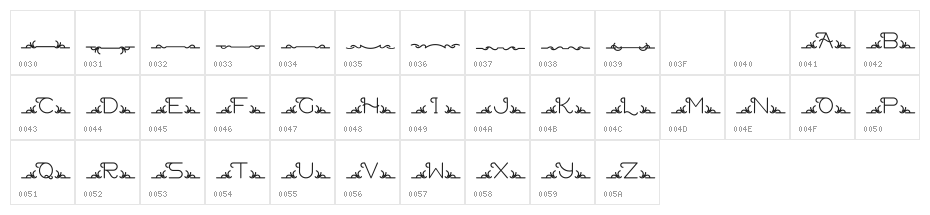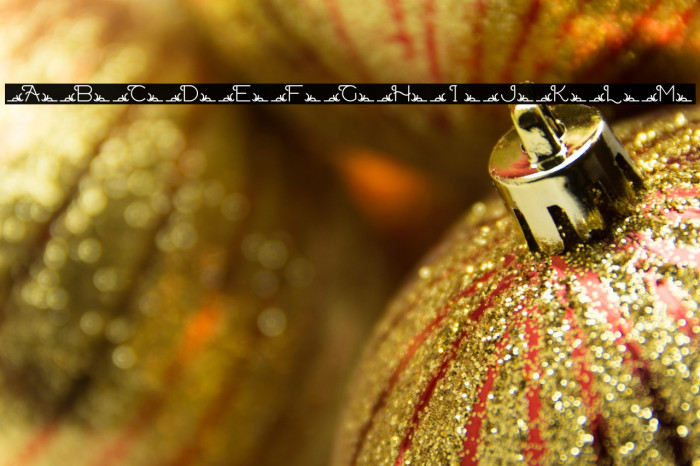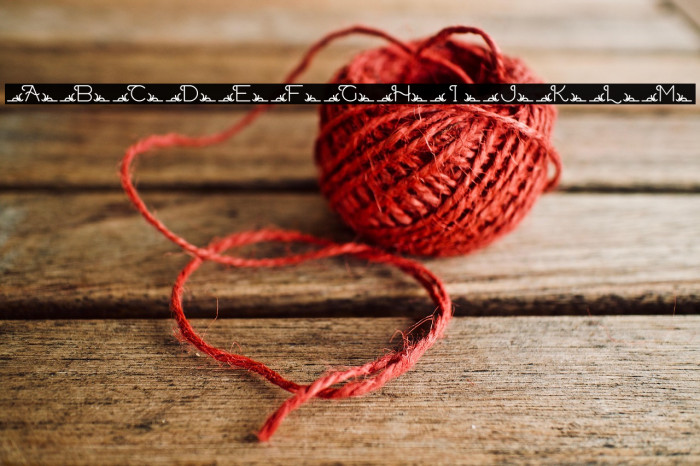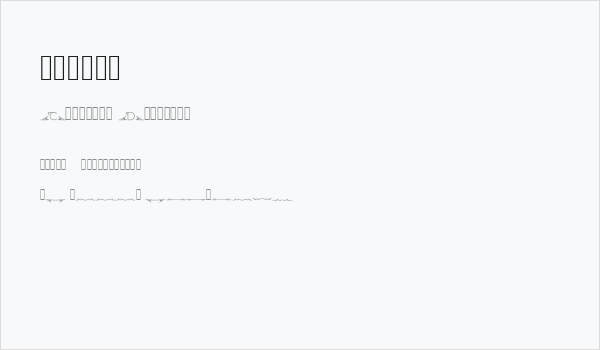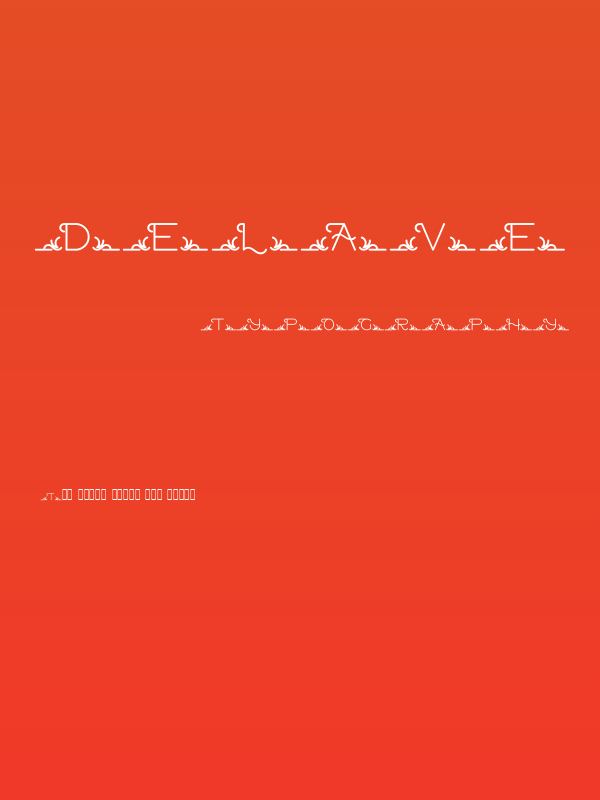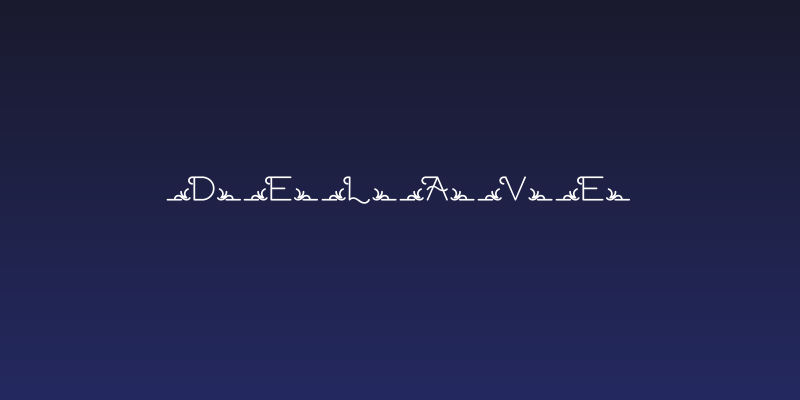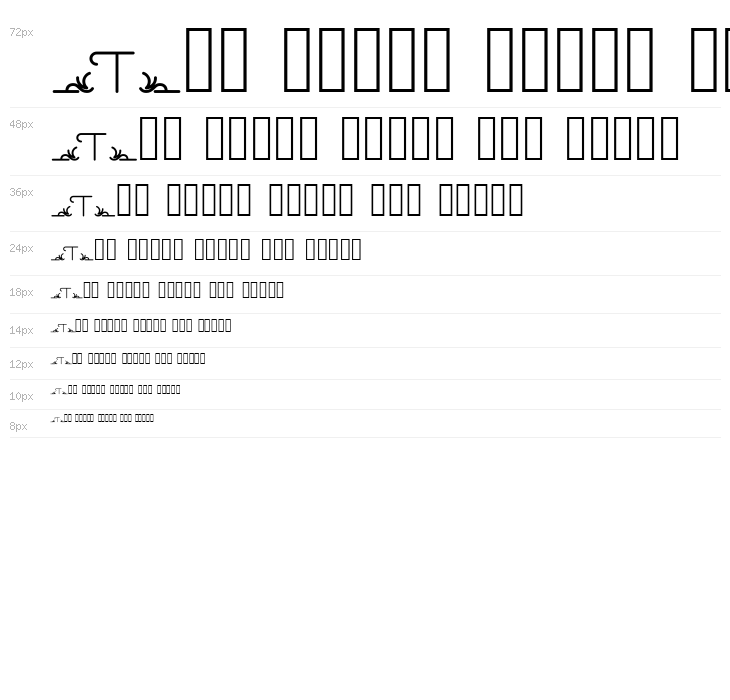
delave Font
delave Description
This font features an ornate and decorative style, characterized by intricate floral embellishments surrounding each character. The letters are elegantly crafted with a consistent use of flourishes that give it a sophisticated and artistic appearance. The uppercase and lowercase letters maintain a uniform design, ensuring a cohesive look throughout. The numerals and special characters are also adorned with similar decorative elements, making the font suitable for projects that require a touch of elegance and creativity. The overall design is reminiscent of vintage calligraphy, offering a sense of timeless beauty.
| Overall Style | Vintage, Decorative |
| Proposed Projects | Ideal for wedding invitations, greeting cards, luxury branding, and decorative posters. |